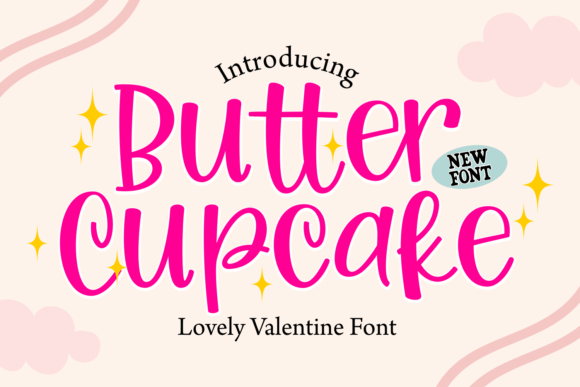
Butter Cupcake Font: The Sweetest Way to Express Love
Are you looking for a font that can add a touch of sweetness and love to your messages? Look no further than the Butter Cupcake font. This delightful Valentine font is designed to bring a smile to the face of your loved ones, making it perfect for creating heartfelt Valentine’s Day cards, romantic notes, or any project that needs a dash of love.
What Makes Butter Cupcake Font So Special?
Butter Cupcake font is a charming and lovable design that captures the essence of affection. Its playful and warm style makes it a lovely choice for spreading love and joy in your designs. Here are some features that make Butter Cupcake font stand out:
- Charming Design: The font features a unique and charming design that is sure to capture the hearts of your loved ones.
- Playful and Warm Style: The font has a playful and warm style that makes it perfect for creating heartfelt messages.
- Perfect for Valentine’s Day: The font is specifically designed for Valentine’s Day, making it a great choice for creating romantic cards and messages.
- Easy to Read: The font is easy to read, making it perfect for creating messages that need to be understood clearly.
Uses of Butter Cupcake Font
Butter Cupcake font is a versatile font that can be used in a variety of ways. Here are some ideas:
- Valentine’s Day Cards: Create heartfelt Valentine’s Day cards that will make your loved ones feel special.
- Romantic Notes: Write romantic notes that will express your love and affection.
- Wedding Invitations: Use the font to create beautiful wedding invitations that will set the tone for the big day.
- Social Media Posts: Use the font to create social media posts that will spread love and joy.
- Graphic Designs: Use the font in your graphic designs to add a touch of love and sweetness.
Benefits of Using Butter Cupcake Font
Using Butter Cupcake font can bring a number of benefits to your designs. Here are some of the benefits:
- Adds a Touch of Love: The font adds a touch of love and sweetness to your designs, making them more special.
- Creates a Personal Touch: The font creates a personal touch that makes your messages more heartfelt and sincere.
- Easy to Use: The font is easy to use, making it perfect for designers of all levels.
- Unique Design: The font has a unique design that will make your designs stand out from the crowd.
Tips for Using Butter Cupcake Font
Here are some tips for using Butter Cupcake font:
- Use it for Valentine’s Day: Use the font to create Valentine’s Day cards and messages that will make your loved ones feel special.
- Experiment with Colors: Experiment with different colors to find the one that works best with the font.
- Pair it with Other Fonts: Pair the font with other fonts to create a unique and interesting design.
- Use it for Social Media: Use the font to create social media posts that will spread love and joy.
In conclusion, Butter Cupcake font is a delightful Valentine font that adds a sweet touch to your messages of love. With its charming and lovable design, this font is perfect for creating heartfelt Valentine’s Day cards, romantic notes, or any project that needs a dash of love. Its playful and warm style captures the essence of affection, making it a lovely choice for spreading love and joy in your designs.